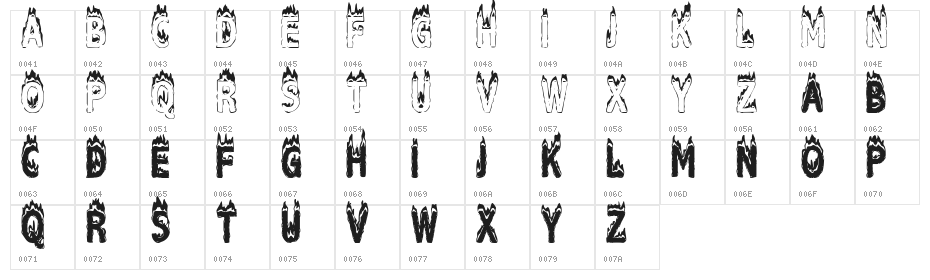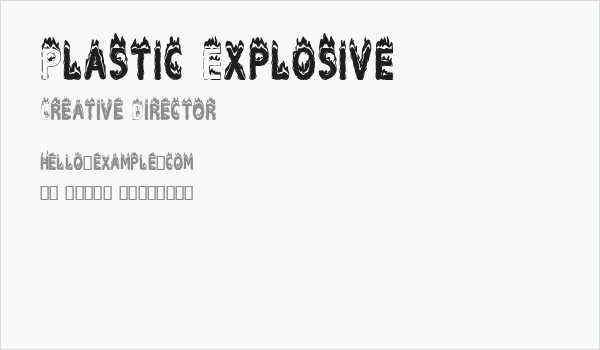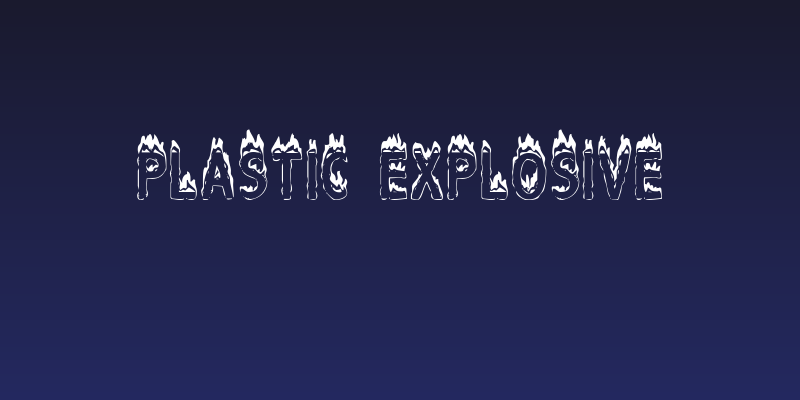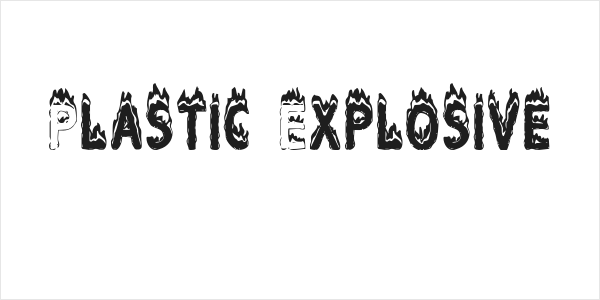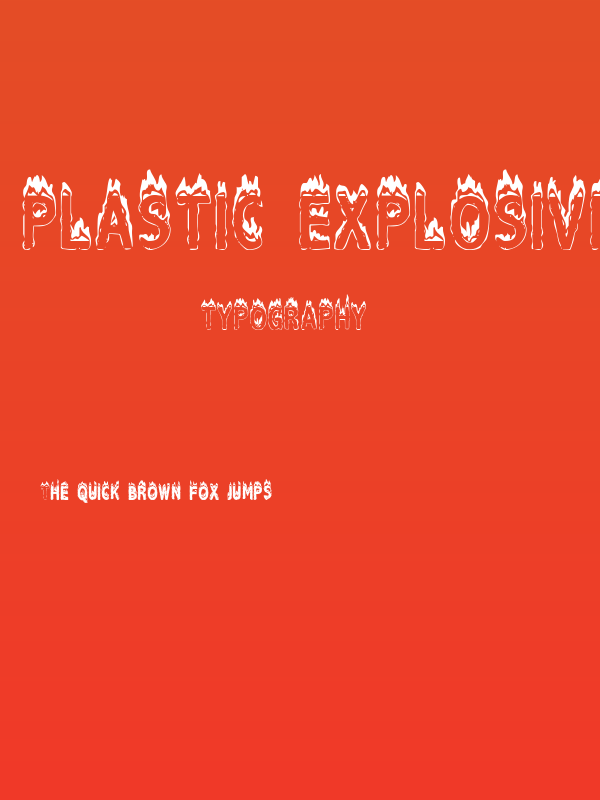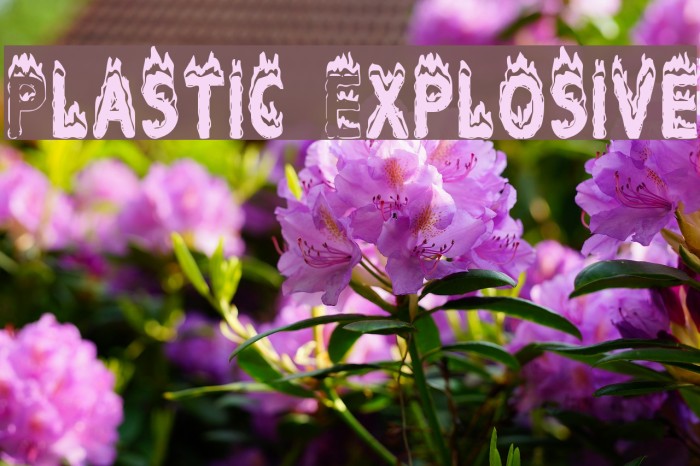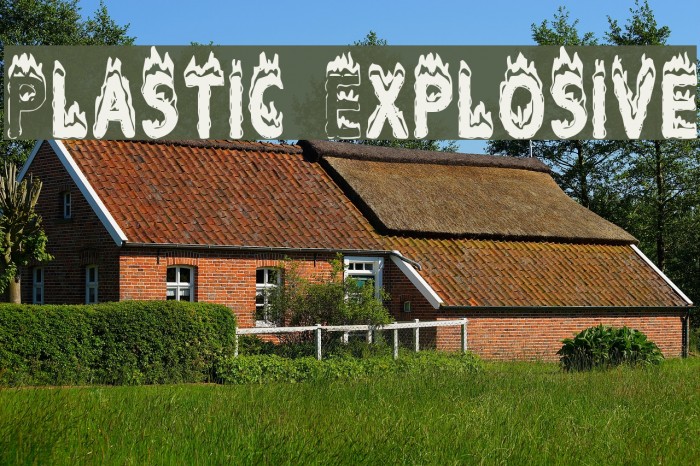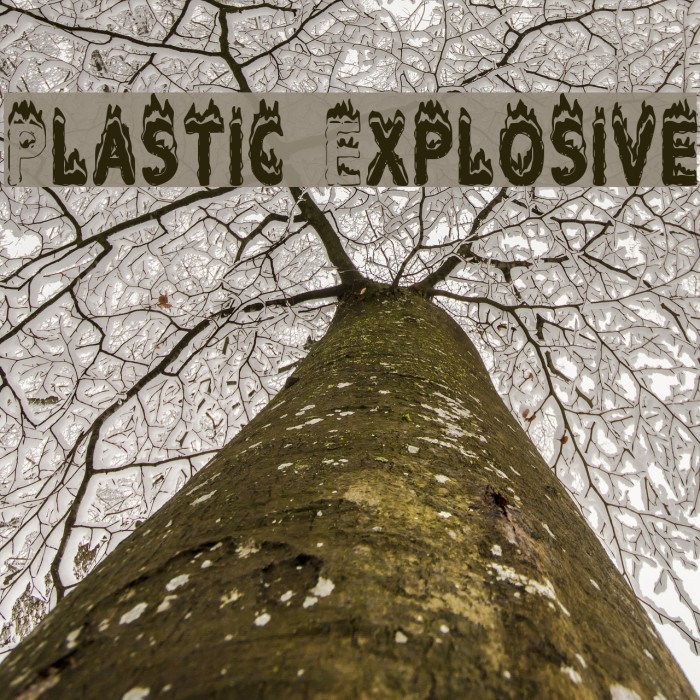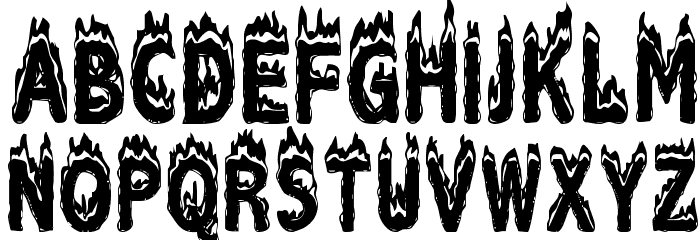
Plastic Explosive Font
Plastic Explosive Description
This font features a bold and dynamic design with an explosive, fiery appearance. The uppercase letters are adorned with flame-like extensions at the top, giving each character a sense of movement and intensity. The strokes are thick and robust, creating a strong visual impact. The overall style is highly decorative, making it suitable for attention-grabbing headlines or thematic designs. The font does not include lowercase letters or numbers, focusing solely on uppercase characters. The unique style is reminiscent of action or adventure themes, ideal for projects that require a bold statement.
| Proposed Projects | Ideal for movie posters, video game titles, event flyers, or any project requiring a dramatic and energetic typeface. |